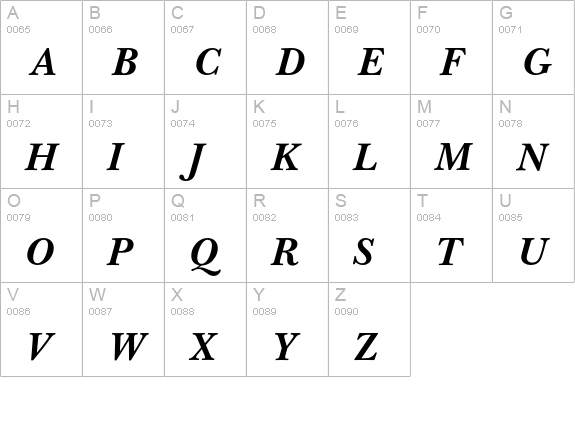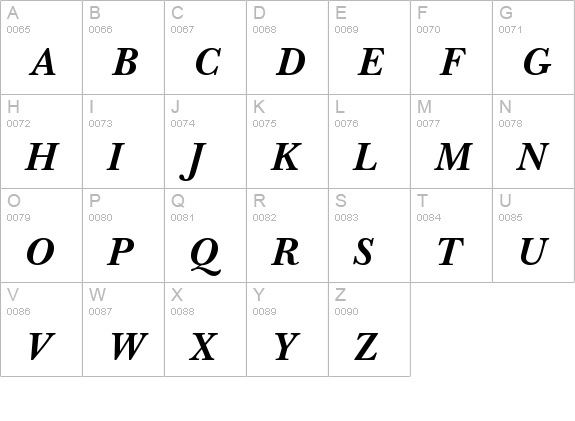
NewBaskervilleEF-BoldItalic is a sophisticated and elegant font that exudes a sense of timeless beauty and refinement. The bold and italic style adds a touch of modern flair while still maintaining a classic appeal. This font is perfect for creating eye-catching headers, titles, and other design elements that demand attention. What sets NewBaskervilleEF-BoldItalic apart is not just its stunning design, but also the fact that it is available for free download at FontsMarket.com. This makes it easily accessible to designers, creatives, and anyone looking to elevate their projects with a touch of sophistication. Whether you're working on a branding project, a wedding invitation, or a magazine layout, NewBaskervilleEF-BoldItalic is sure to make a lasting impression. With its graceful curves, strong lines, and overall sense of refinement, NewBaskervilleEF-BoldItalic is a versatile font that can be used across a wide range of design applications. Download it for free today and add a touch of elegance to your next project.